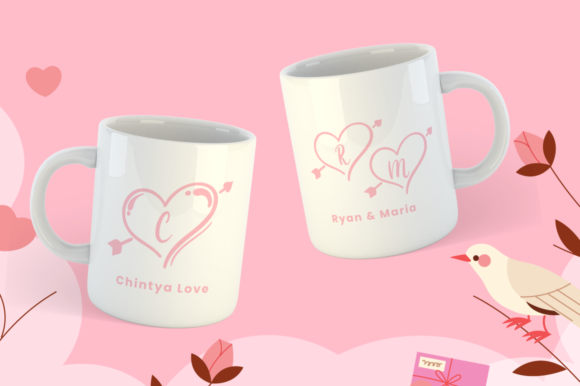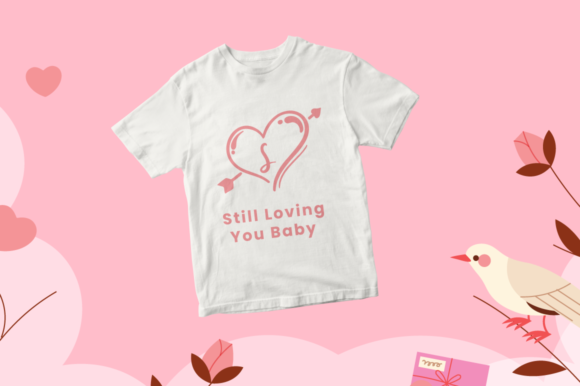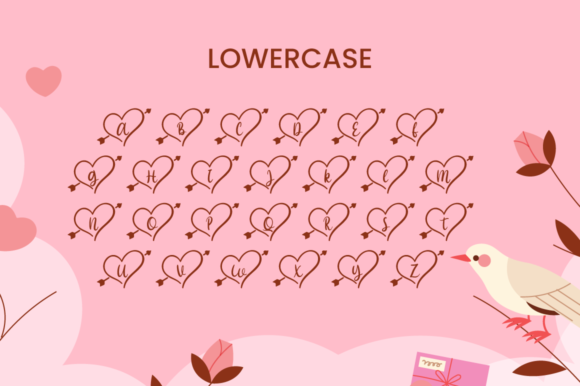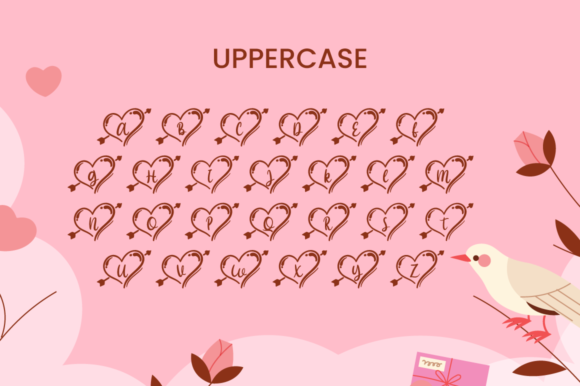
The Perfect Font to Express Your Love
As designers, we’ve all been there – staring at a blank canvas, searching for the perfect font to convey the emotions and feelings we want to express. Whether it’s a romantic proposal, a wedding invitation, or a heartfelt Valentine’s Day message, the right font can make all the difference. And that’s where the Hello Heart Monogram Font comes in – a beautiful, elegant font that’s designed to capture the essence of love and romance.
This lovely font is not just a pretty face; it’s a valuable tool for designers who want to add a touch of whimsy and personality to their projects. With its authentic design and versatility, the Hello Heart Monogram Font can be used for everything from business logos to social media posts, making it a must-have for any designer looking to add a little romance to their work.
Hello Heart Monogram Font Key Features
- Unique Characteristics: Hello Heart Monogram Font features a unique, hand-drawn design with intricate details and a touch of elegance, making it perfect for wedding invitations, baby announcements, and other special occasions.
- Monogram Options: The font includes a range of monogram options, allowing users to create custom initials with ease and add a personal touch to their designs.
Hello Heart Monogram Font Review
Overall, I think the Hello Heart Monogram Font is a lovely addition to any design project. ✨ The font’s clean lines and subtle monogram design make it perfect for personalizing gifts, invitations, and other special items. The font’s versatility is one of its strongest points, as it can be used for both formal and casual designs.
Some of the things that work well with this font include:
- Its elegant and sophisticated feel, making it ideal for high-end branding and design projects.
- Its scalability, allowing it to be used in a variety of sizes and resolutions without losing its quality.
- Its wide range of customization options, making it easy to tailor the font to fit your specific design needs.
- ⚠️ The font may not be the best choice for bold, attention-grabbing designs, as its subtle nature can get lost in the mix.
- ⚠️ The font may not be as readable in certain font sizes or resolutions, so be sure to test it thoroughly before using it in your project.
Overall, I think the Hello Heart Monogram Font is a great choice for designers who want a sophisticated and elegant font for their projects. With its clean lines and versatility, it’s sure to make a great impression. Just be sure to keep its limitations in mind and test it thoroughly before using it in your design.
The “Hello Heart Monogram Font” is perfect for creating personalized gift tags, wedding invitations, and social media graphics.
For best results, use this font in combination with other monogram or cursive fonts to create a unique and eye-catching design.